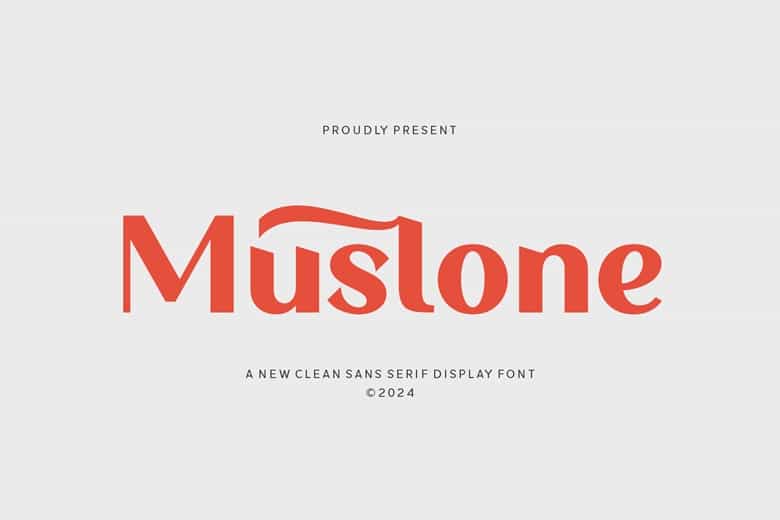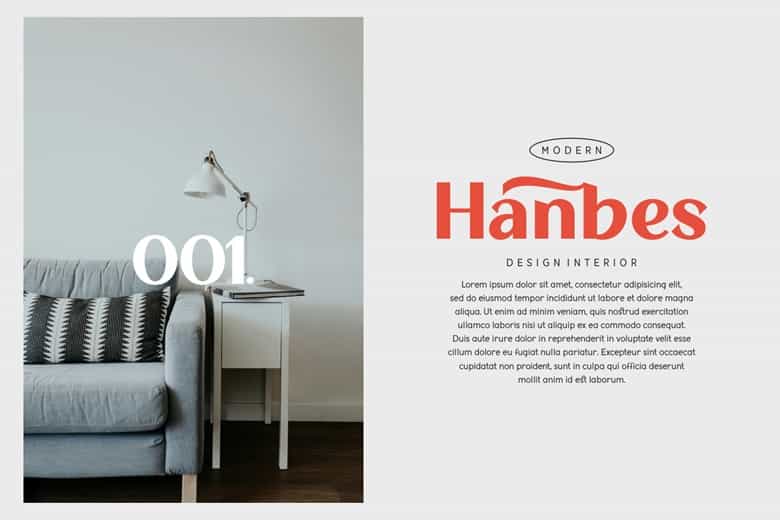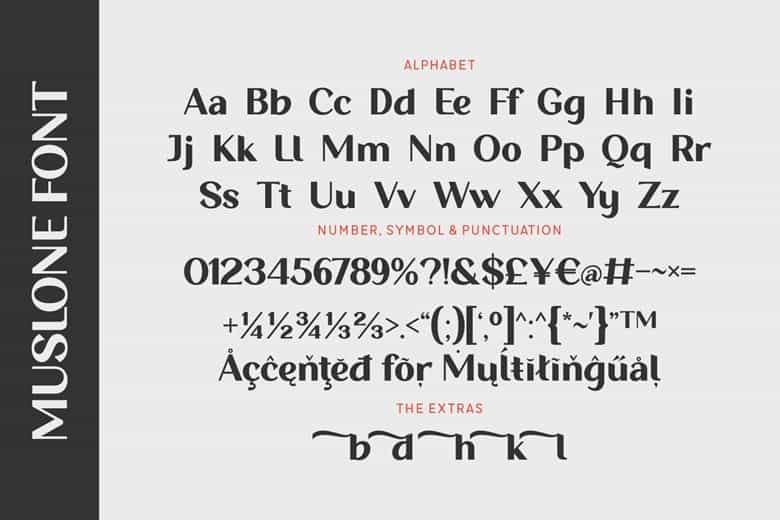
Muslone is a new designed font, based on the sans serif typeface, with a modern look, and a hint of flair. It has large and clear letters with the minimalistic style with small, major differences making it attractive without being too intricate. Whether it is a headline, a logo or any other text that requires a new, fashionable look.